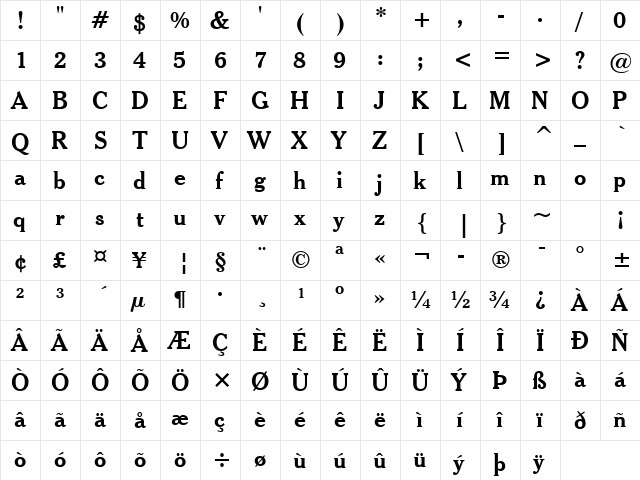
Cheltenhm BdHd BT Bold Font Preview
Cheltenhm BdHd BT Bold
Cheltenhm BdHd BT Bold Font Details
Design Context for Cheltenhm BdHd BT Typeface
Cheltenhm BdHd BT offers clean, dependable letterforms without strong stylistic allegiance, making it a practical choice for designers who need flexibility. Its bold stroke weight gives it real presence on the page.